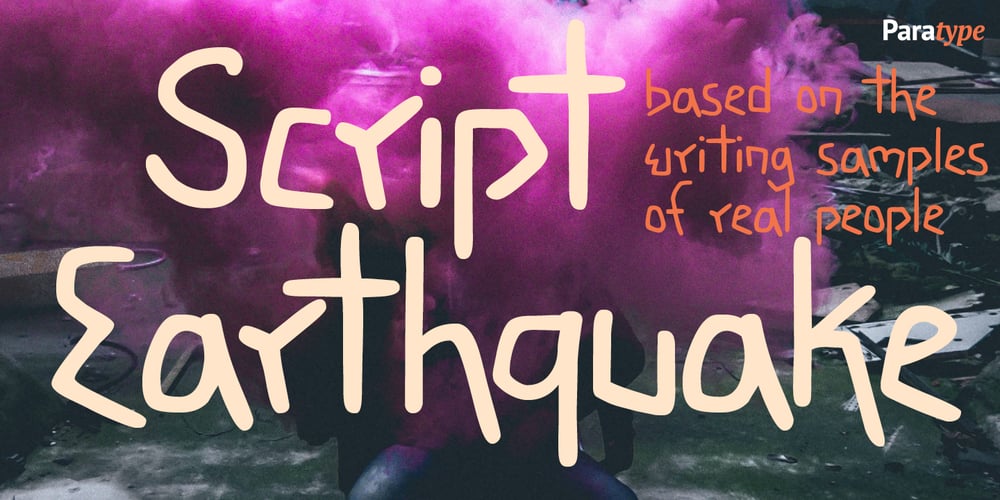
PT Earthquake
PT Earthquake font
PT Earthquake Font Family was designed by published by ParaType. PT Earthquake contains 1 styles and family package options. Earthquake font was developed for the series of handwriting fonts based on the writing samples of real people. The font delivers natural sincere touch and can magically convert any stupid advertizing text into intimate advice of your good friend. Cyrillic version was developed by Gennady Fridman in 2009.